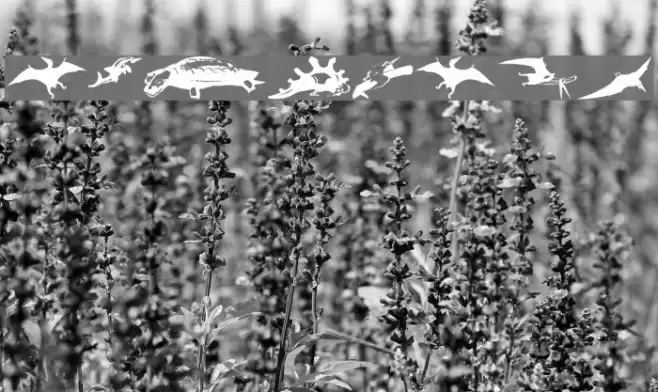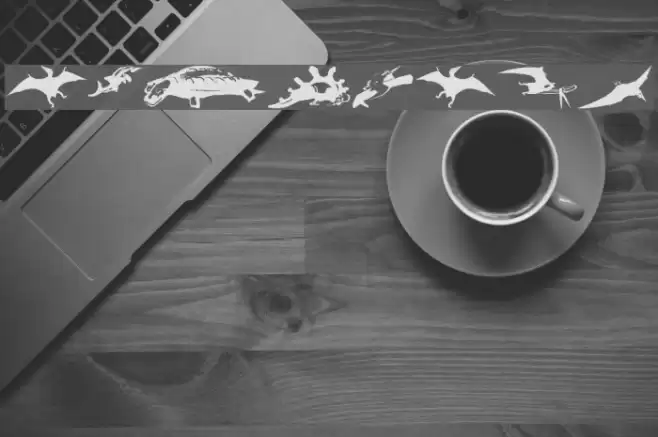
NewDinos Font
A decorative display font composed of dinosaur and prehistoric animal silhouettes representing each character, with high-contrast black shapes and playful, irregular outlines.
A display font made of dinosaur and prehistoric animal silhouettes from Uncategorized fonts.
- Proposed Projects: Children’s books, educational posters, themed party invitations, museum exhibits, playful branding.
- Overall Style: Decorative, Playful, Thematic
- Use Case: Headlines, Logos, Posters, Themed graphics